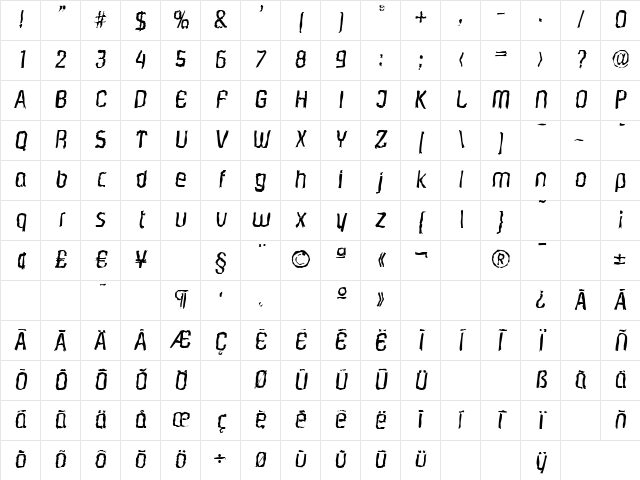
MaxBeckerRandom Italic
Complete MaxBeckerRandom Italic glyph index. Displaying only characters natively supported by MaxBeckerRandom Italic font.
Design Context for MaxBeckerRandom
MaxBeckerRandom is a composed and adaptable typeface that performs quietly and consistently across a wide range of design contexts. The slanted form adds forward momentum and visual energy.
Pro Tip: Use MaxBeckerRandom for emphasis, pull quotes, and subheadings where its slanted energy can add rhythm to the layout.